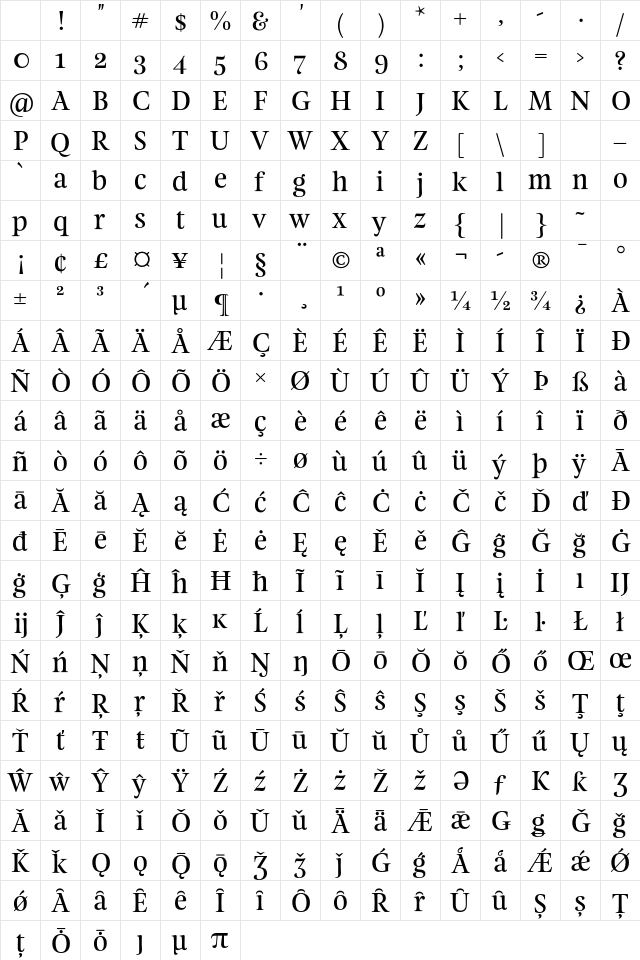
Feijoa is built around its visual character rather than neutral utility - its distinctive forms are designed to make an impression at display sizes.
Font Pairing: Pair with a clean neutral sans-serif for body copy to let Feijoa's character lead without overwhelming the composition.
Pro Tip: Use Feijoa exclusively at display sizes - it was designed to be seen, not read at length. Let a neutral companion handle body copy.